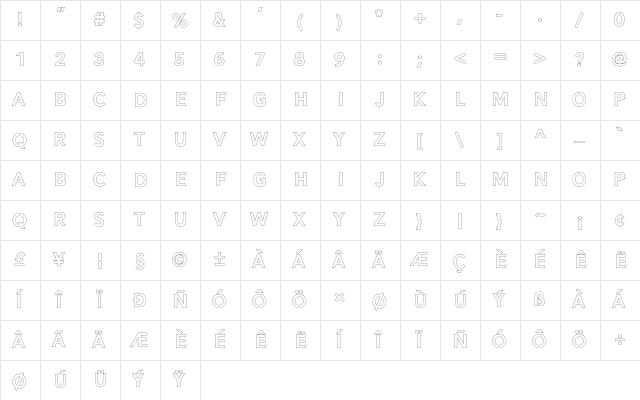
Alesand Outline ExtBd Regular
| Designer | Solidtype Studio |
Design Context for Alesand Outline ExtBd Typeface
Alesand Outline ExtBd brings ornamental detail and strong personality to headlines and identities, where visual impact matters more than quiet functionality.
Font Pairing: Pair with a clean neutral sans-serif for body copy to let Alesand Outline ExtBd's character lead without overwhelming the composition.
Pro Tip: Treat Alesand Outline ExtBd as the centrepiece of your typographic hierarchy. One strong heading set in a decorative face can carry an entire layout.